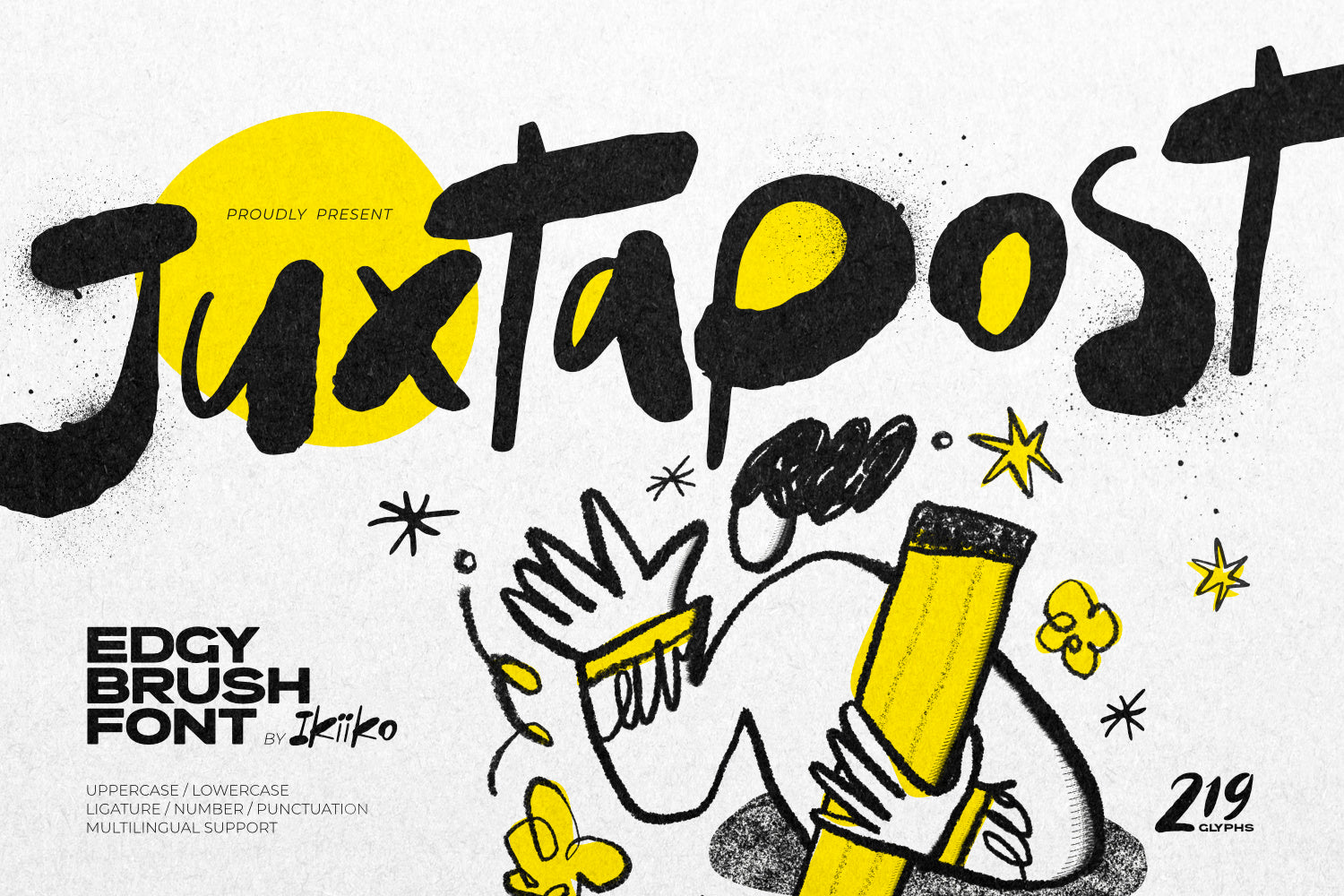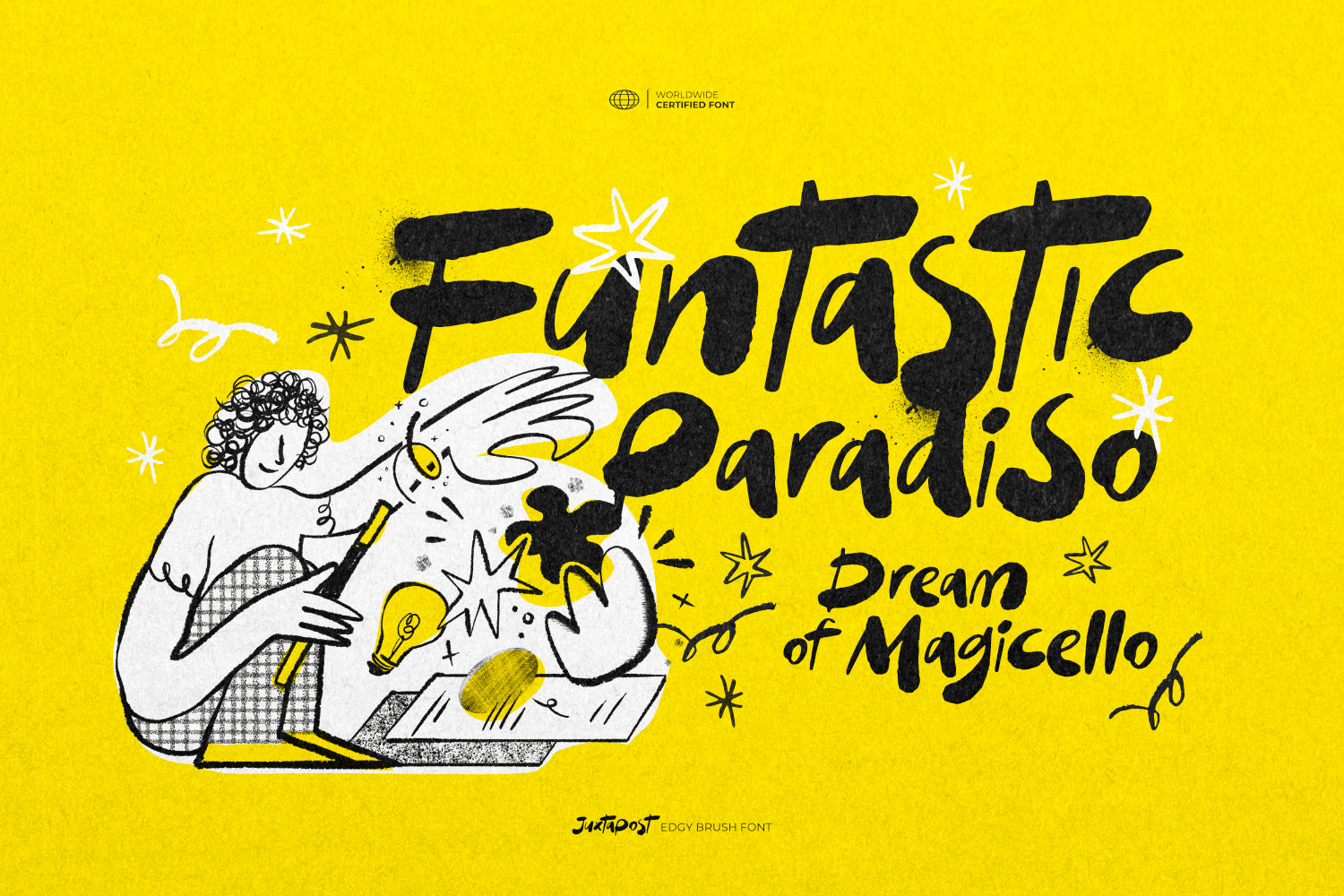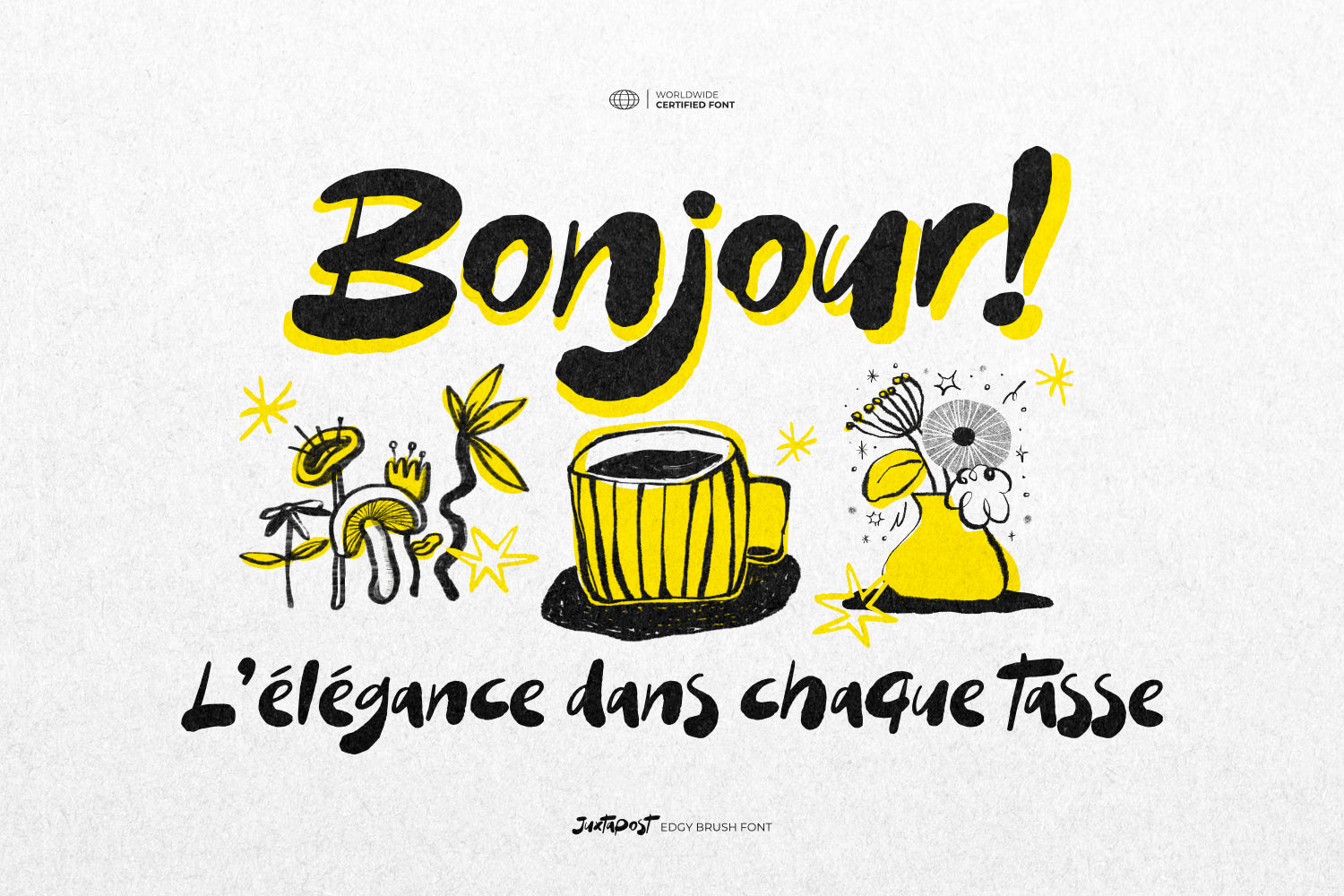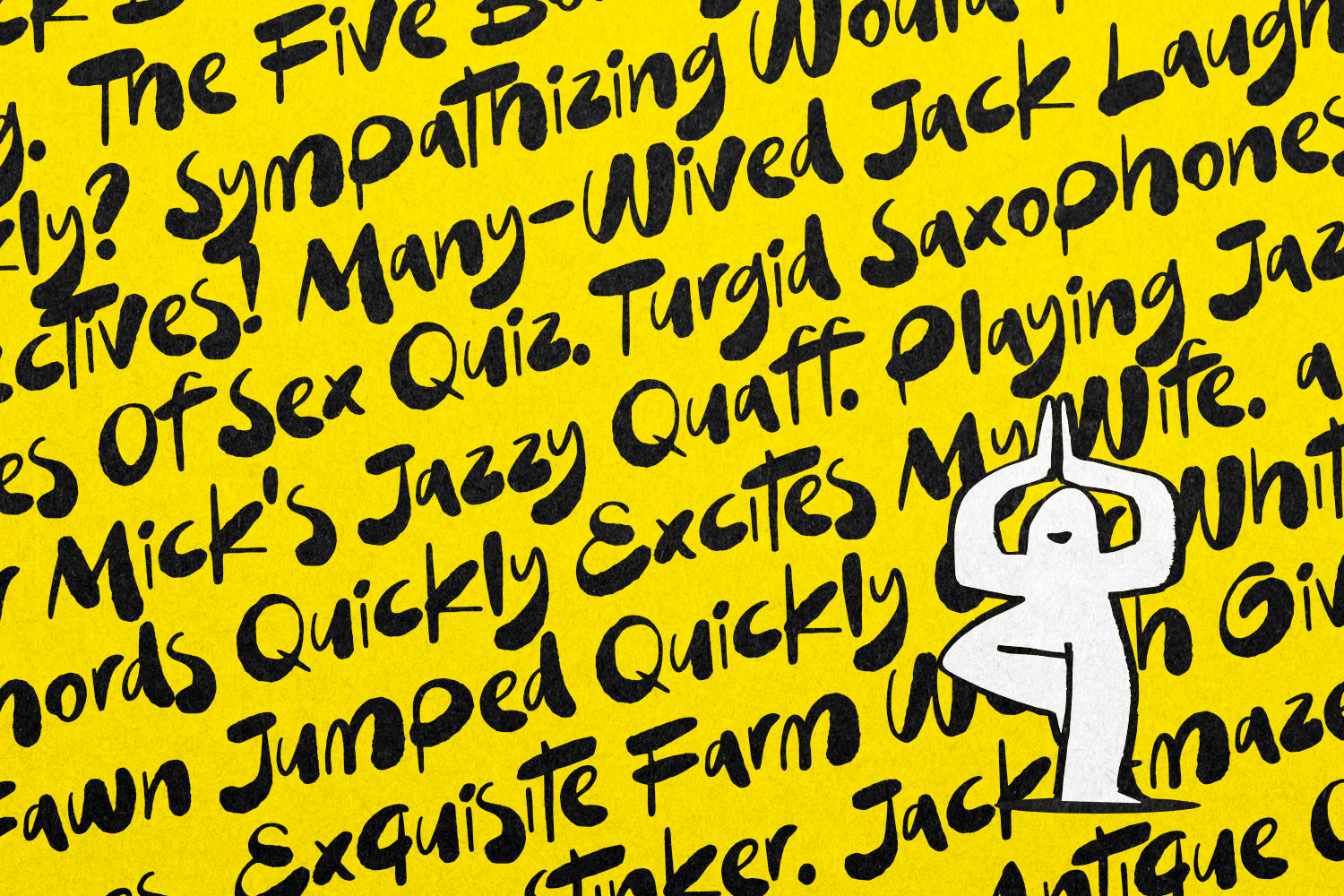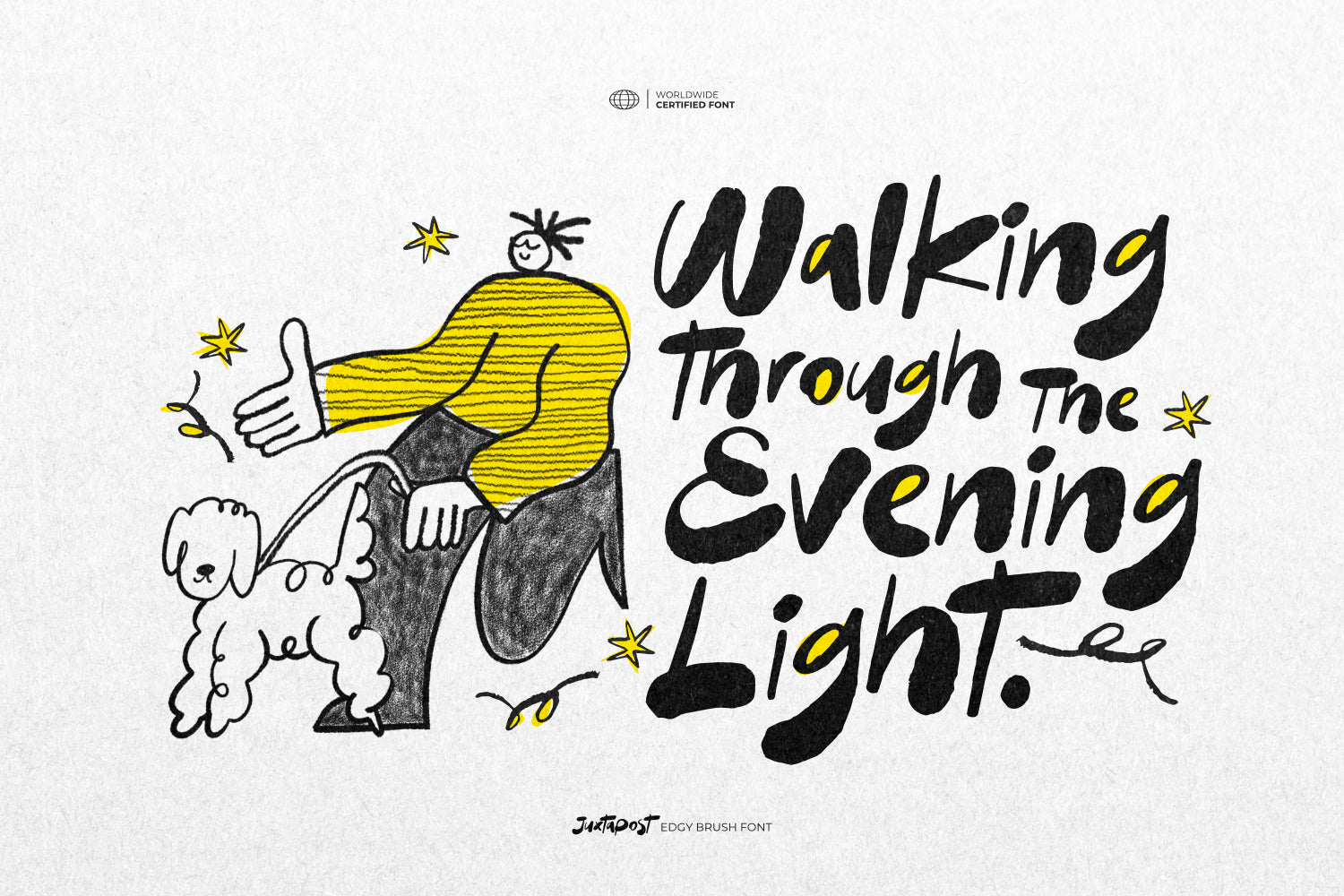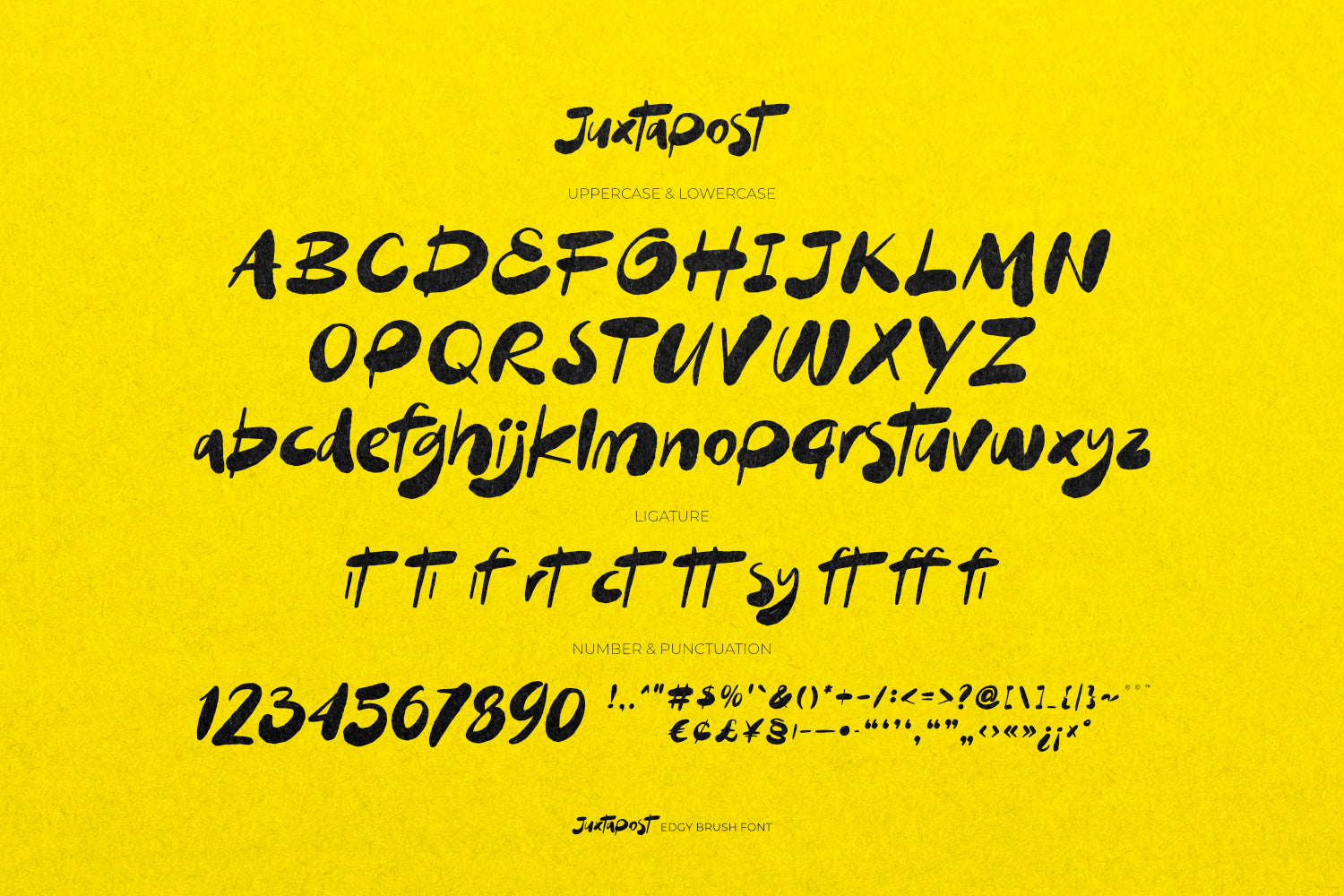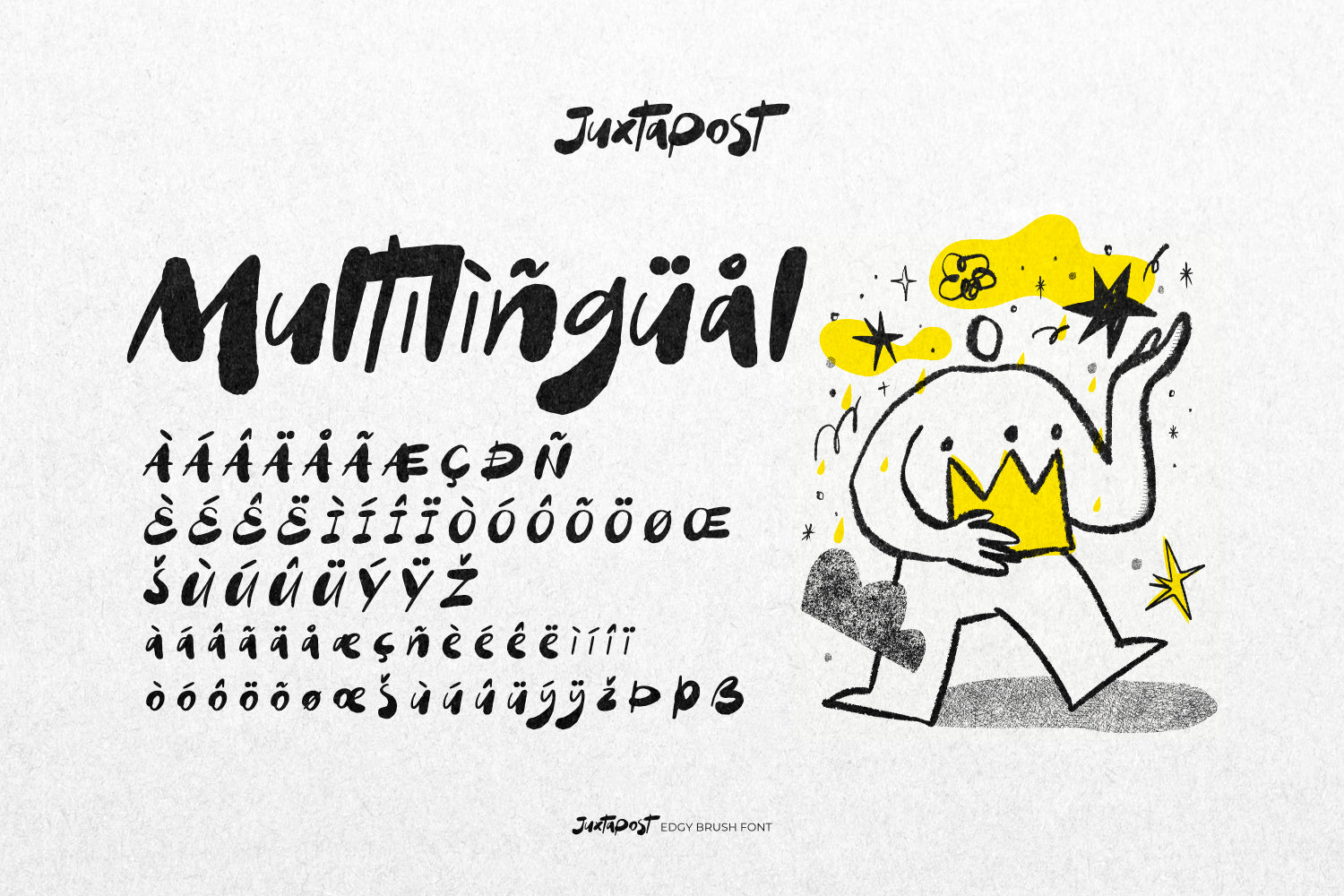
Proudly Present Juxtapost - Edgy Brush Font, created by ikiiko
Juxtapost is a fearless handcrafted brush font that captures the spirit of raw expression and unfiltered creativity. Built from bold, imperfect strokes and rich textured ink, this font delivers an organic, artistic look—beautifully imperfect, expressive, and unapologetically bold.
Every letter is filled with energy—dynamic brush pressure, rough edges, and spontaneous forms that bring a strong, expressive voice to your design. Juxtapost thrives on contrast and juxtaposition—clean layouts meet expressive strokes, structure meets creative freedom. With its artsy, rebellious character and authentic handcrafted feel, Juxtapost transforms every word into a statement—emotive, bold, and impossible to ignore.
This font is perfect for posters, fashion stuff, book covers, movie titles, zines, or anything that needs a strong & expressive typeface.